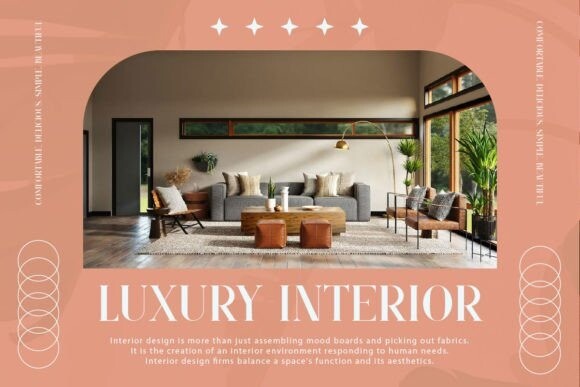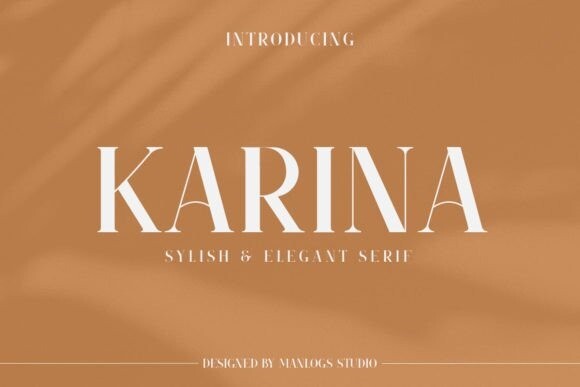
Karina Serif Font
Karina Serif Font is a stylish and elegant serif font that brings elegance to your text. With its sleek lines and sophisticated curves, it adds a touch of refinement to any project.